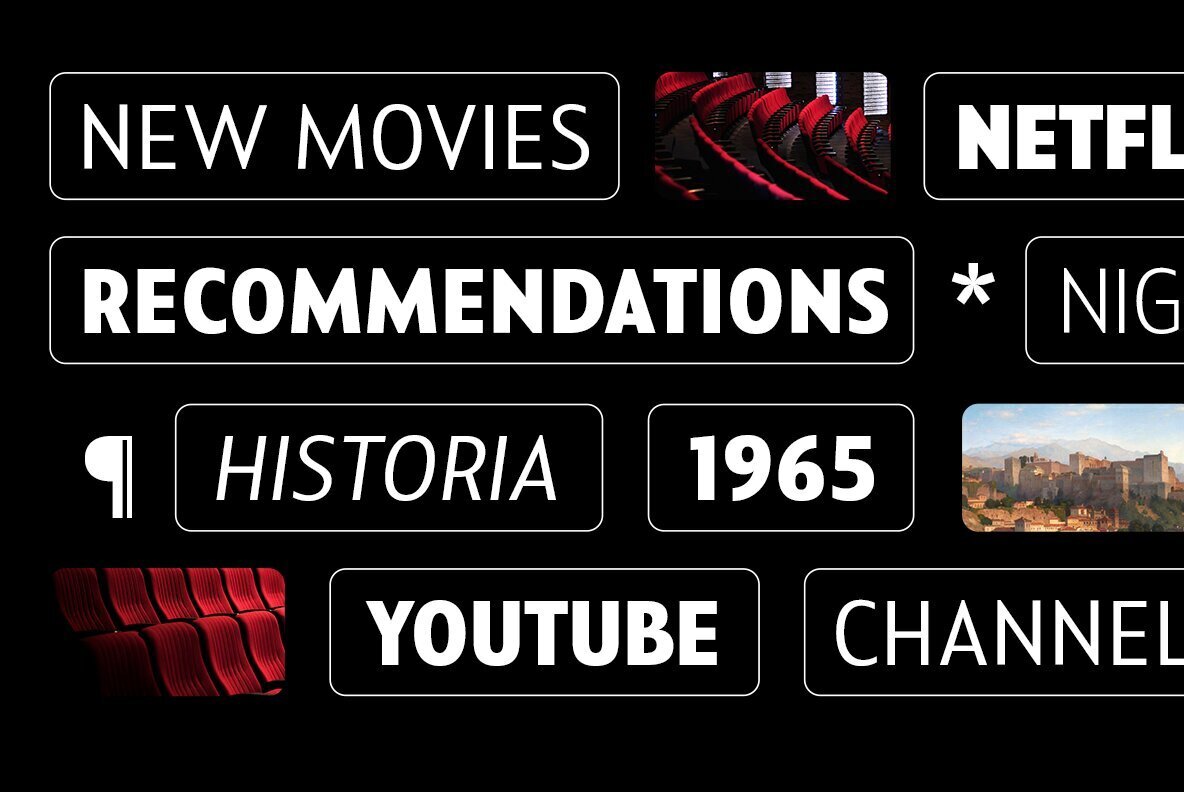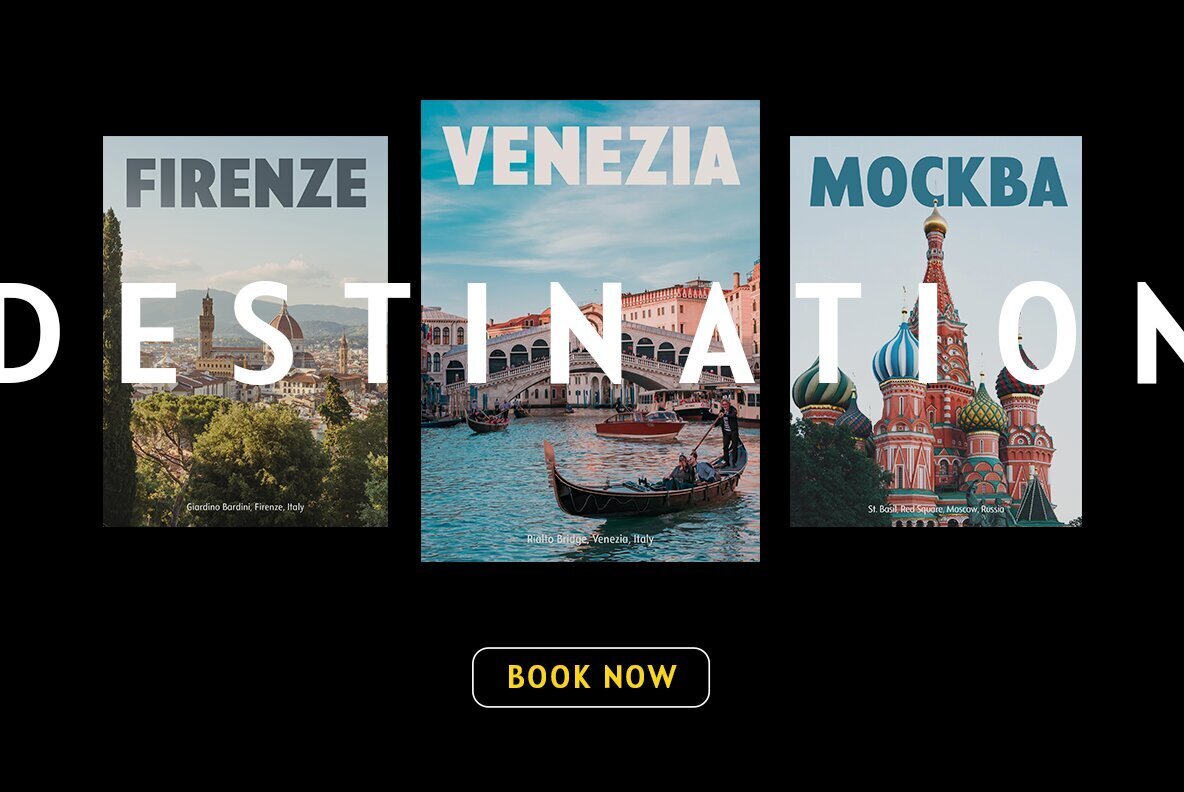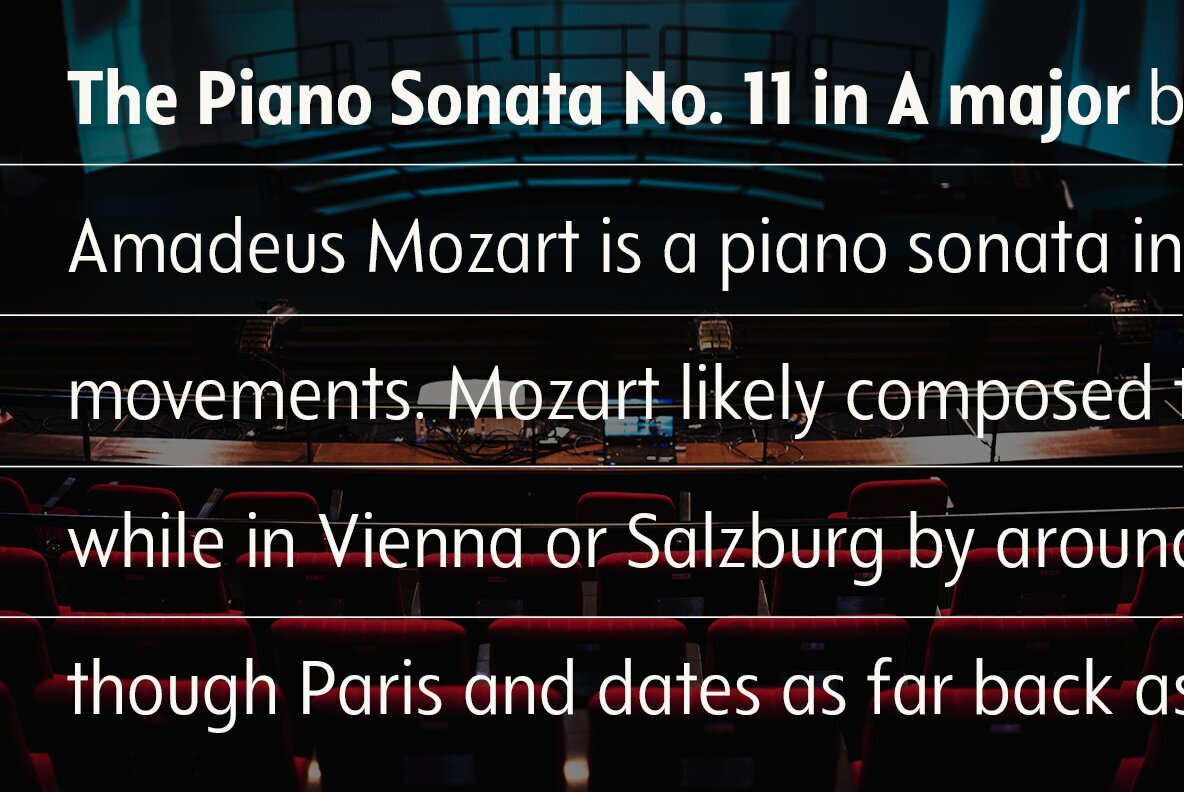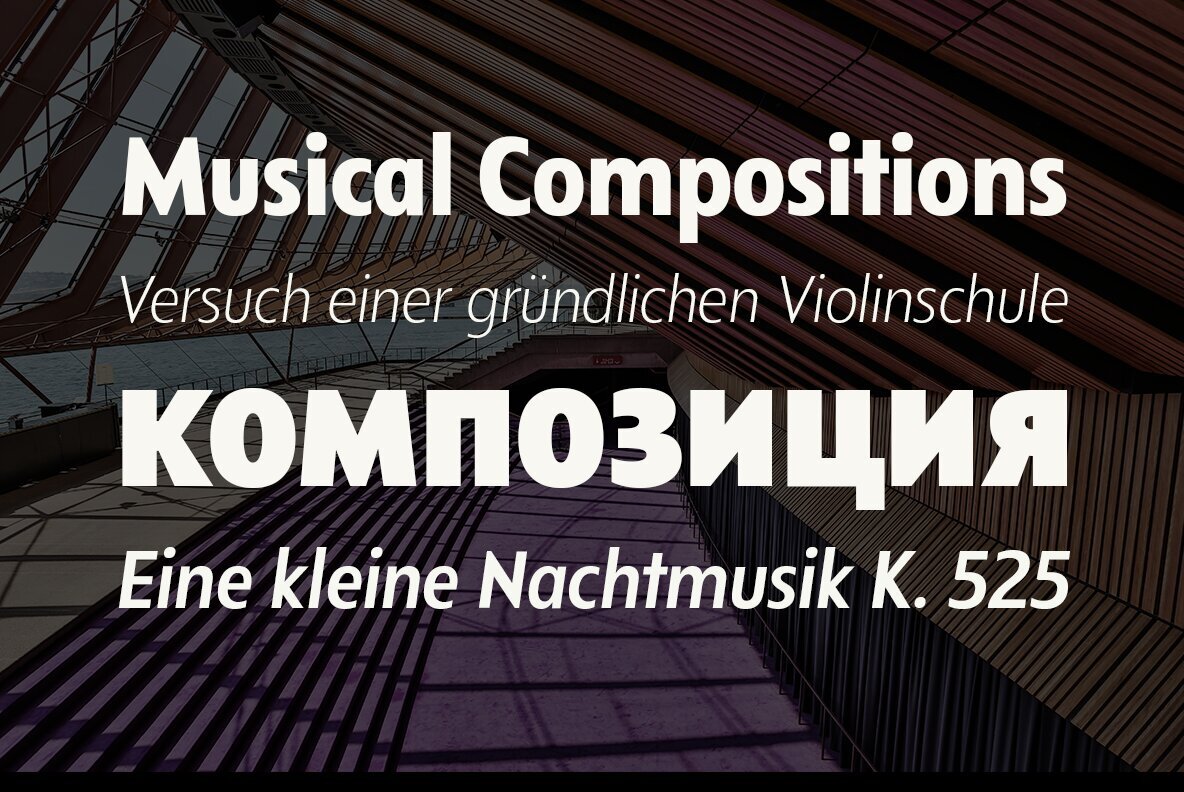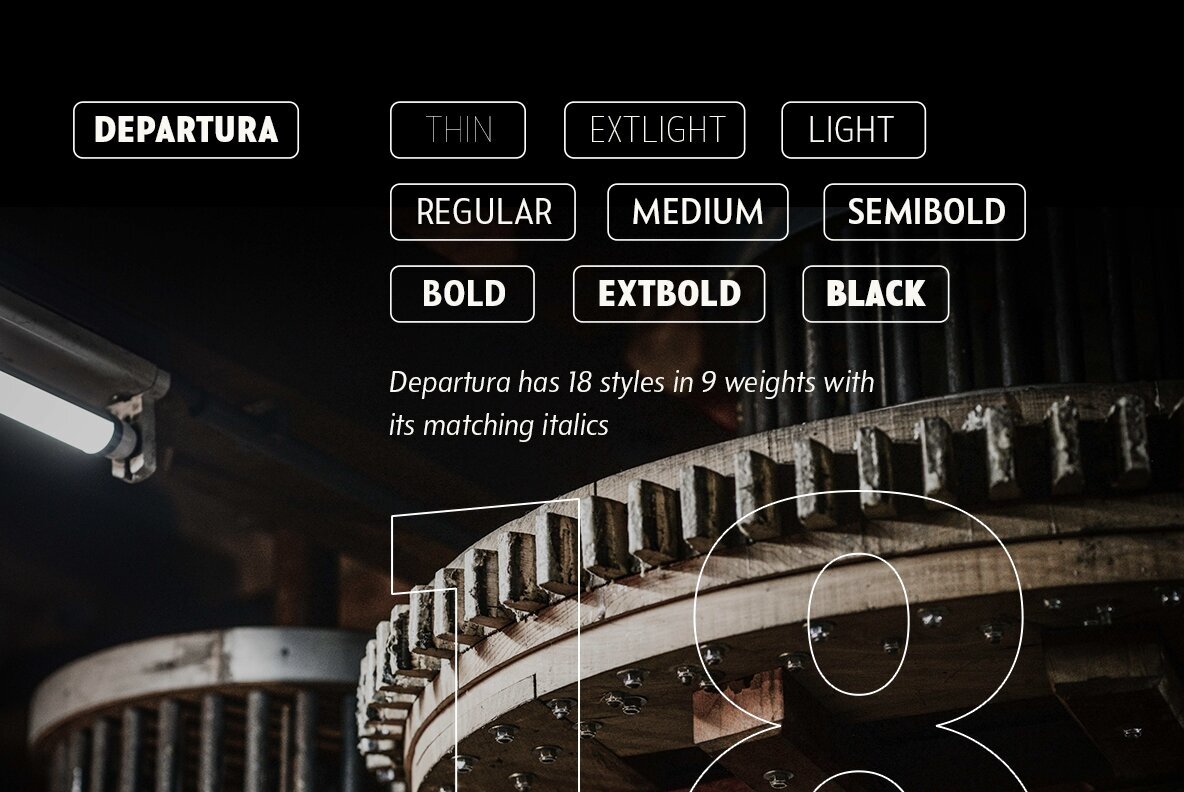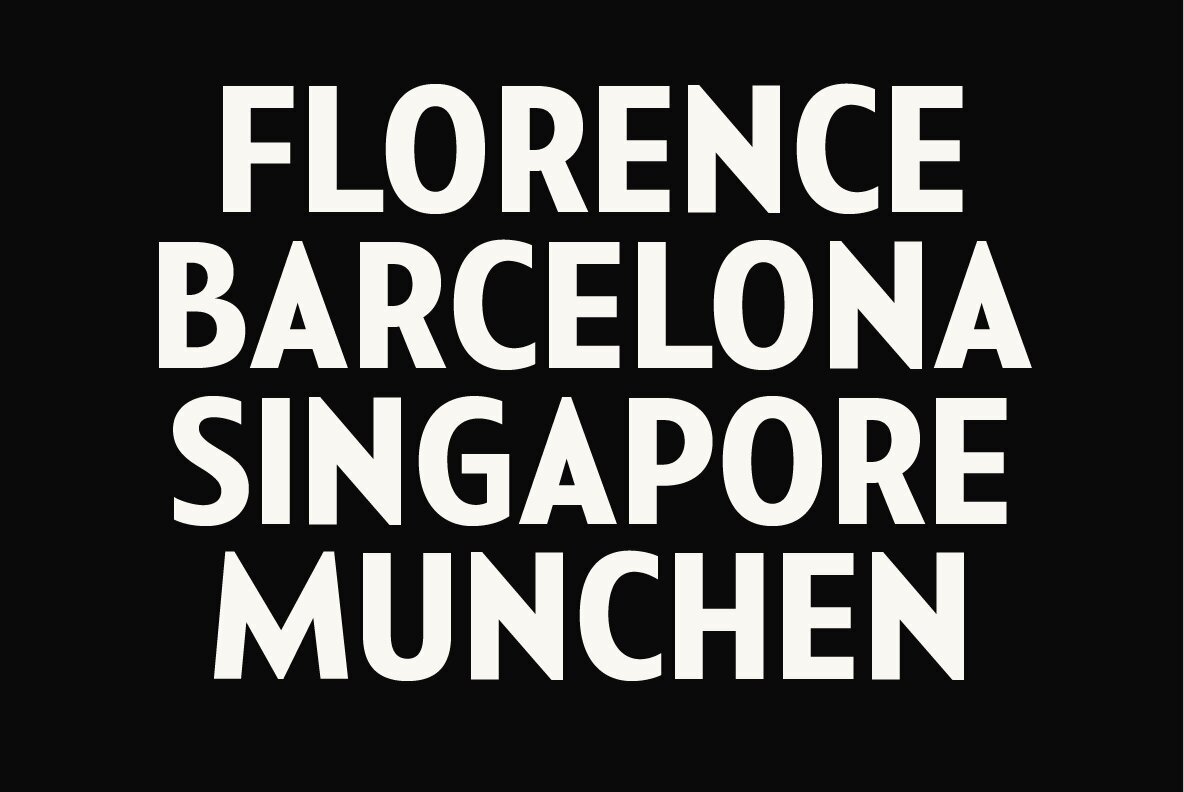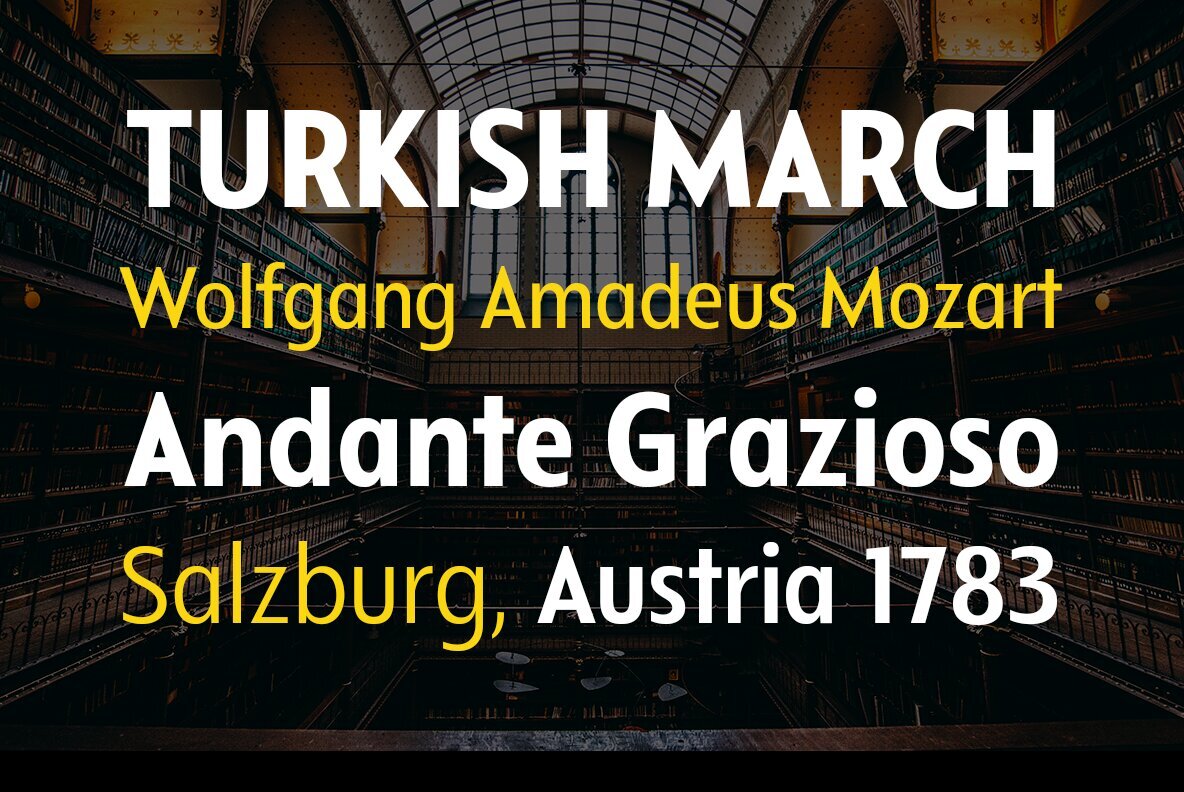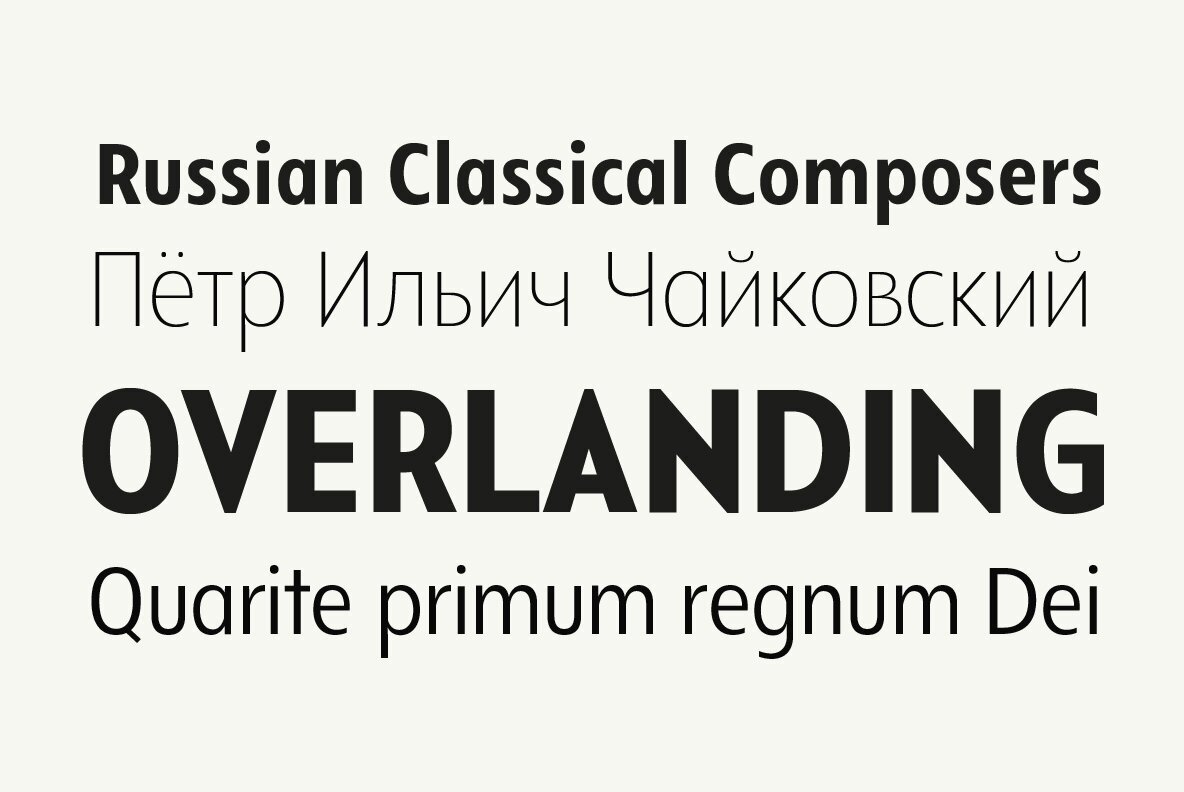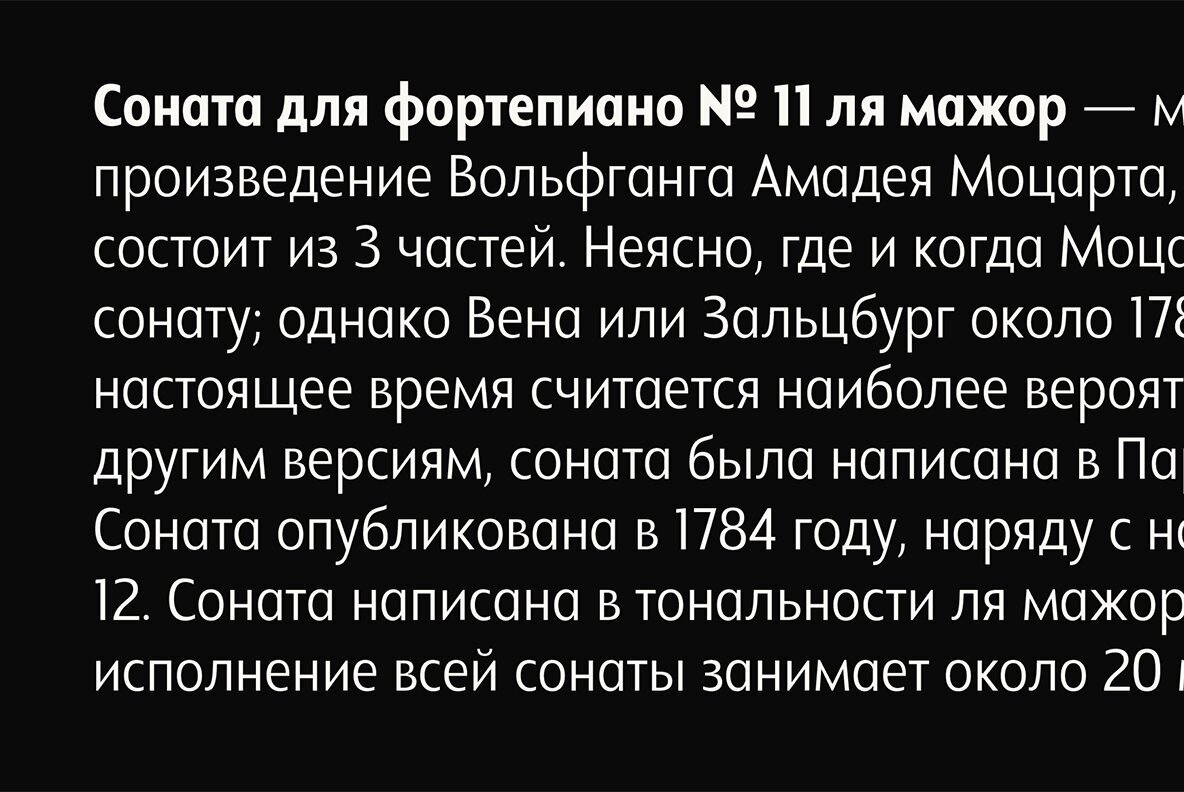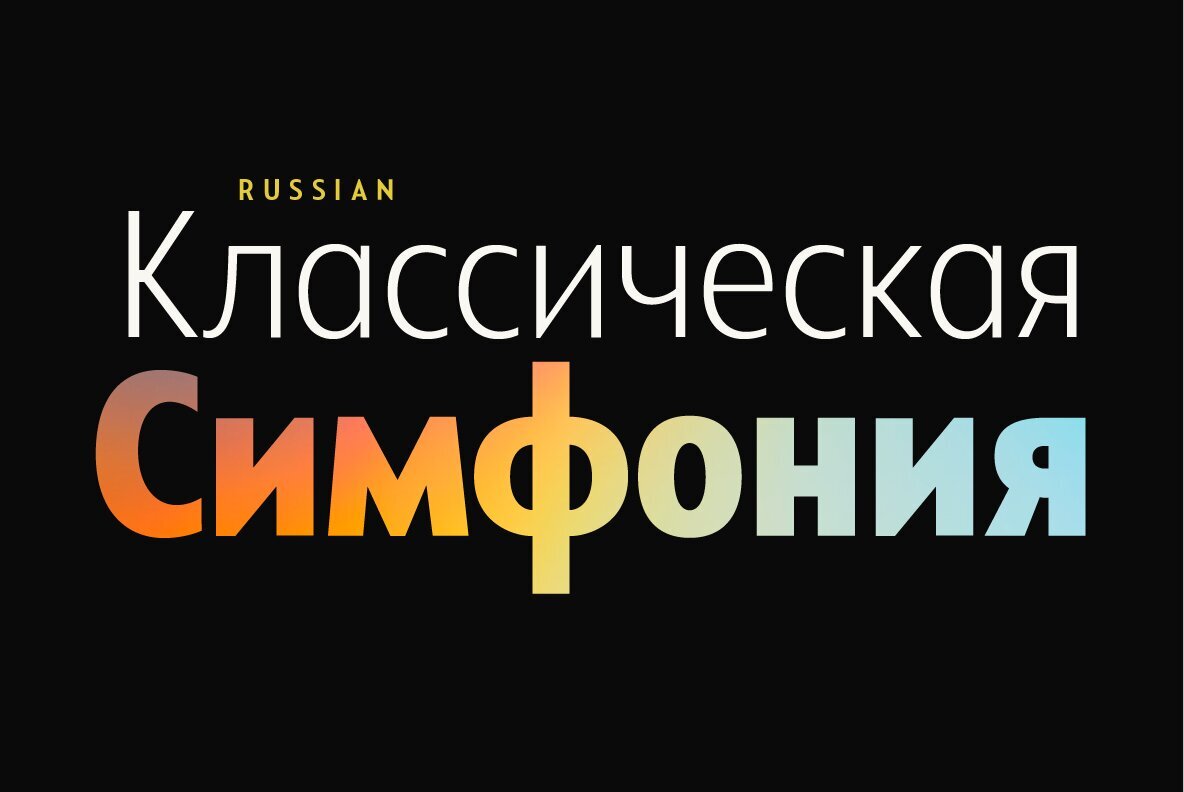
Departura Font
Departura is a sans-serif family inspired by art deco travel posters in early 20th century, fused with modern & geometric touch. It comes in 18 styles, 9 weights and its matching italics. With those style variations, Departura offers many possibilities to be applied in many graphic or editorial projects.The modernized retro-look makes this family great to presents any contents related to travel, history & culture in the present/modern way. Also thanks to the extended latin character set so that Departura supports 200+ latin-based languages plus Cyrillic (including the Bulgarian and Serbian characters).